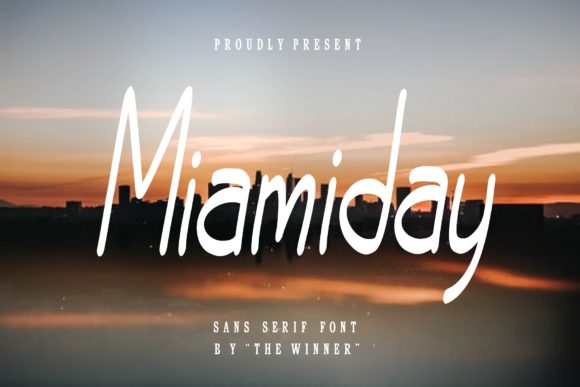
Are you tired of the same old, boring fonts that just don't seem to capture your brand's unique personality? Look no further than Miamiday, the stunning sans serif font that will transform your designs into works of art.
Miamiday's intricate curves and elegant strokes evoke a sense of timeless sophistication, making it the perfect choice for branding, packaging, and any project where you want to make a lasting impression. Its handmade character adds a touch of warmth and charm, ensuring that your designs stand out from the crowd.
With its remarkable versatility, Miamiday effortlessly adapts to a wide range of design styles, from minimalist chic to whimsical and playful. Whether you're creating invitations for a special occasion, designing eye-catching product packaging, or simply adding a touch of flair to your social media posts, Miamiday has got you covered.
But it's not just about the looks. Miamiday is also incredibly easy to use, ensuring that even design novices can create stunning visuals. Its clean lines and well-balanced characters make it a joy to work with, guaranteeing that your designs will always look polished and professional.